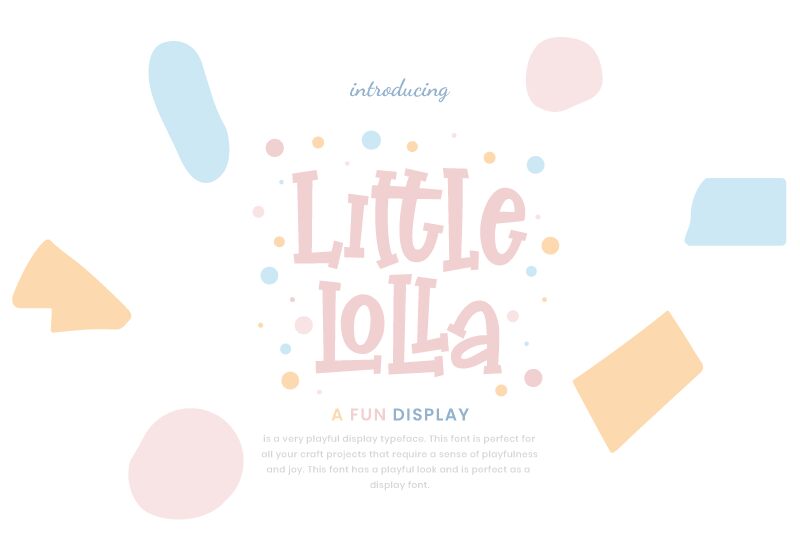
Little Lolla is a playful display font designed by Rian Rahardi. It has a cartoon look with its condensed width, making it perfect for creating eye-catching titles and headlines. Use Little Lolla to bring cheerfulness to projects like children's books, birthday cards, and party invitations. Its unique style works great for creating logos and branding materials, too!
Little Lolla Regular